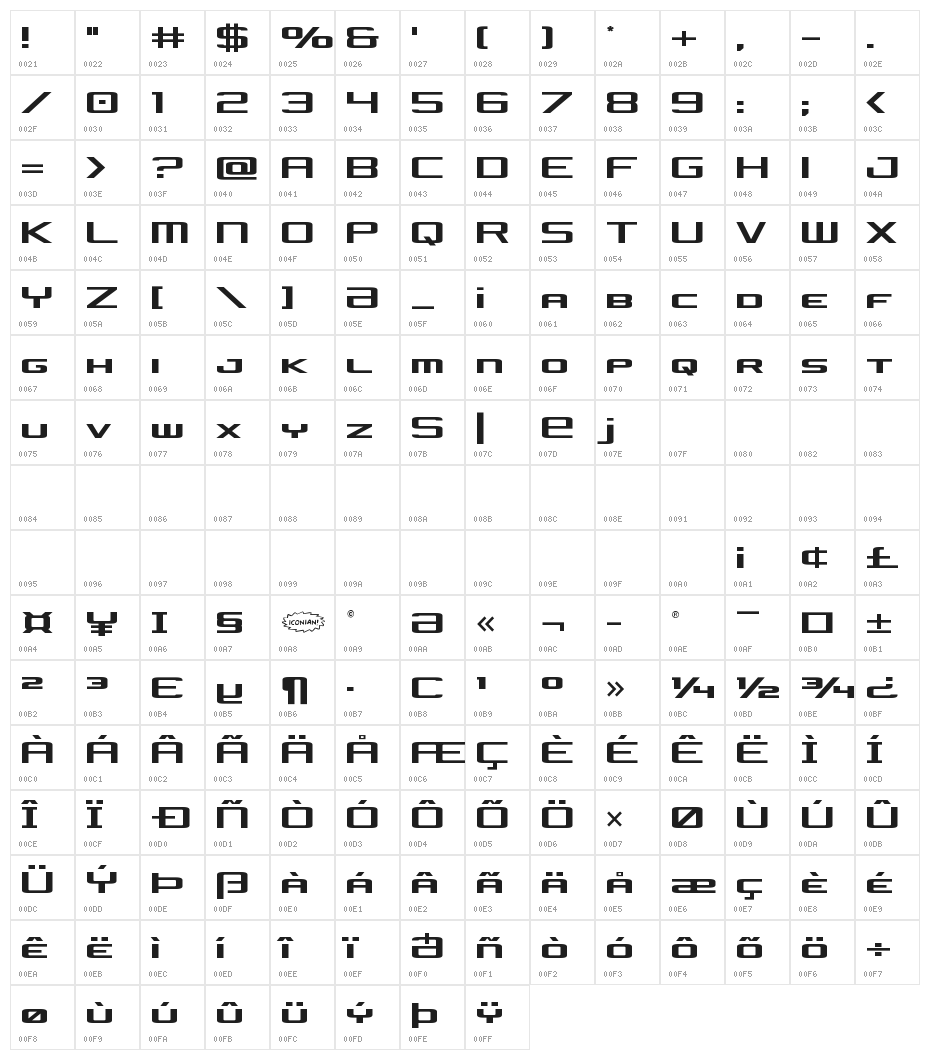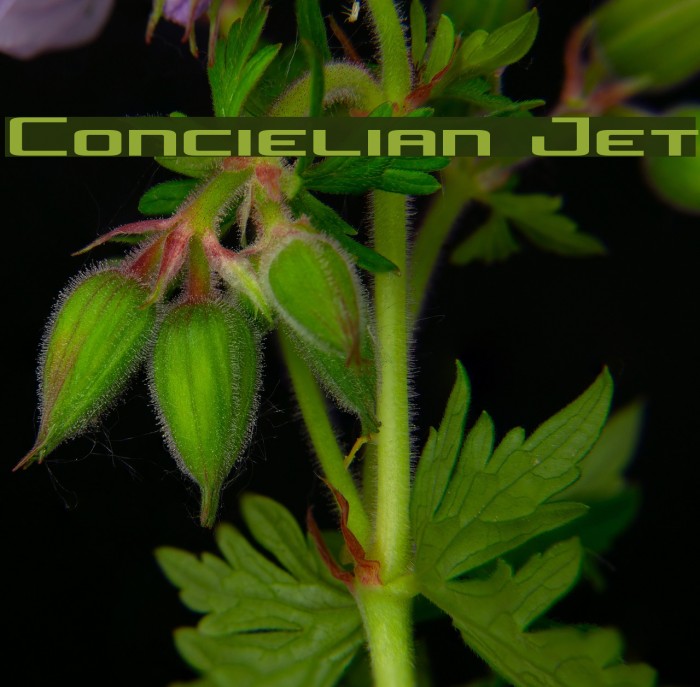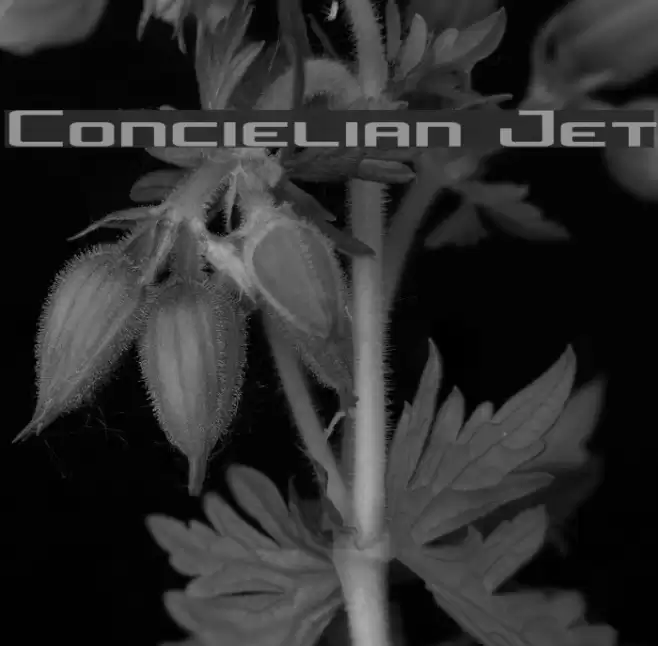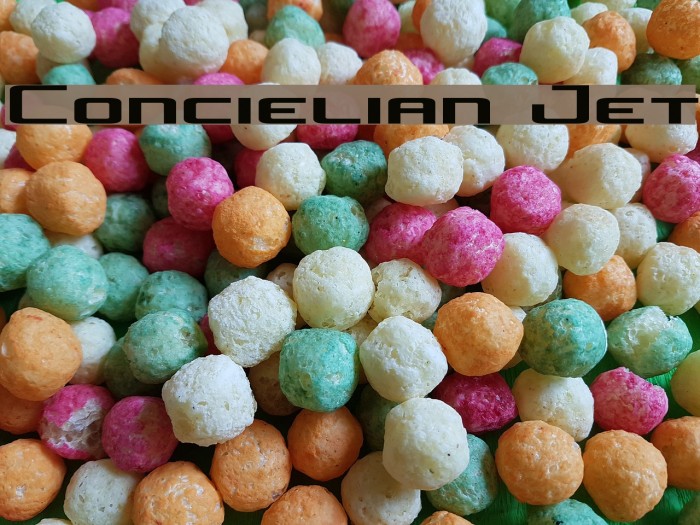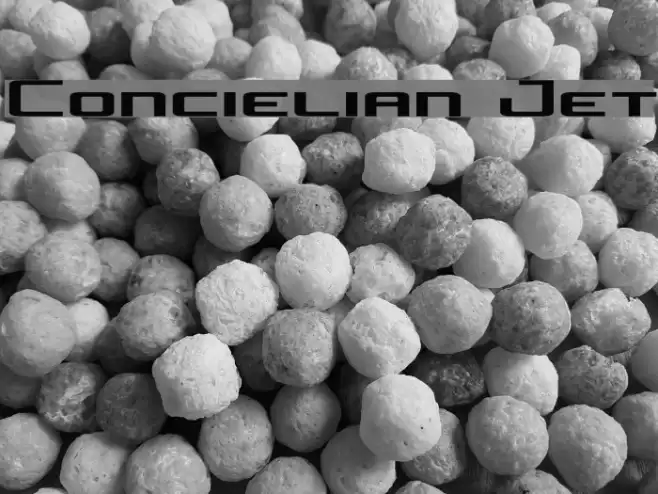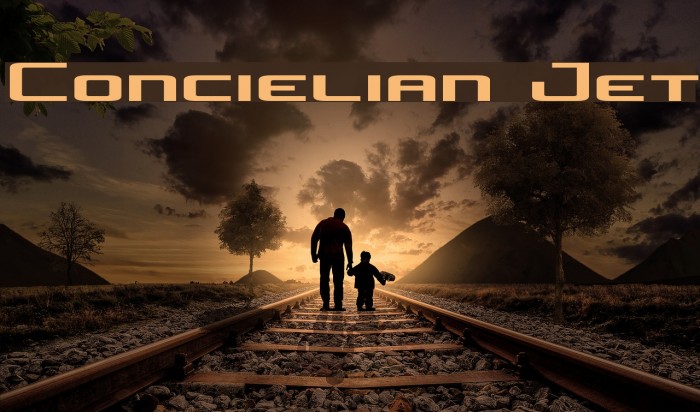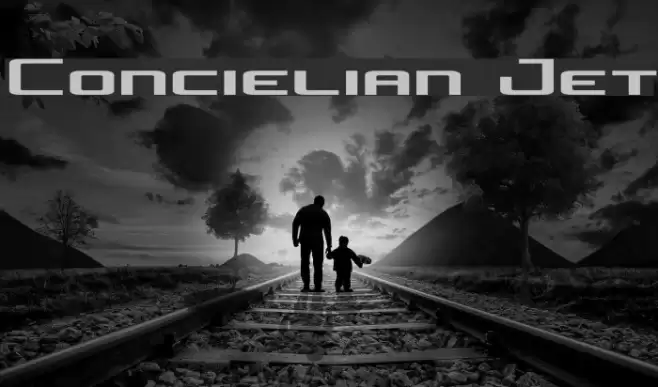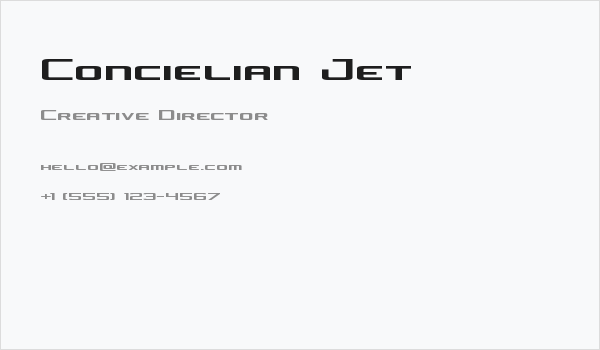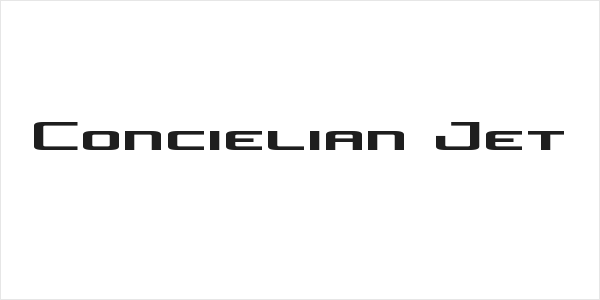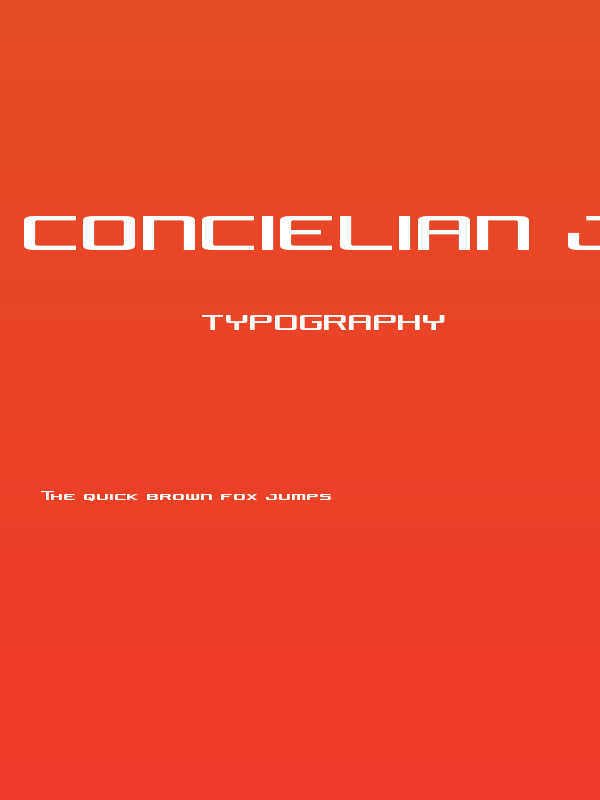
Concielian Jet Font
Concielian Jet Description
This font features a futuristic and geometric design with clean, sharp edges and a modern aesthetic. The characters are uniformly structured, providing a sense of balance and precision. The uppercase and lowercase letters maintain a consistent style, with a slight angularity that adds a dynamic feel. The numbers and special characters are crafted to match the overall sleek appearance, making them ideal for digital and tech-oriented projects. The font's design is both functional and visually striking, suitable for a variety of creative applications.